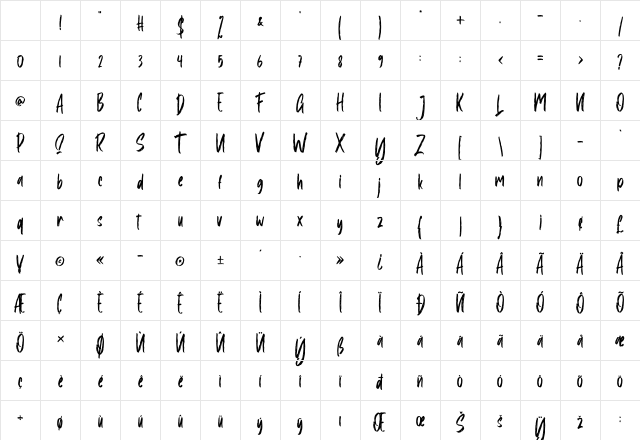
Complete Yesterdays Regular glyph index. Displaying only characters natively supported by Yesterdays Regular font.
Yesterdays is a composed and adaptable typeface that performs quietly and consistently across a wide range of design contexts.